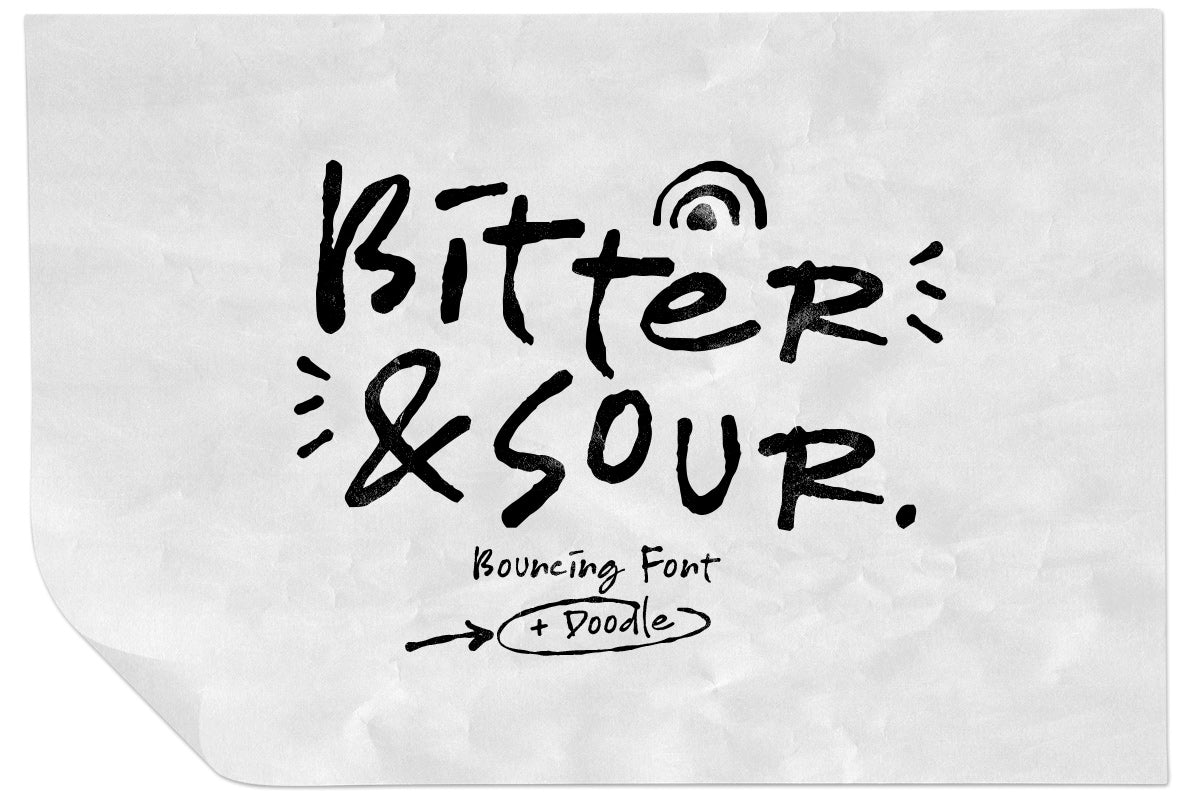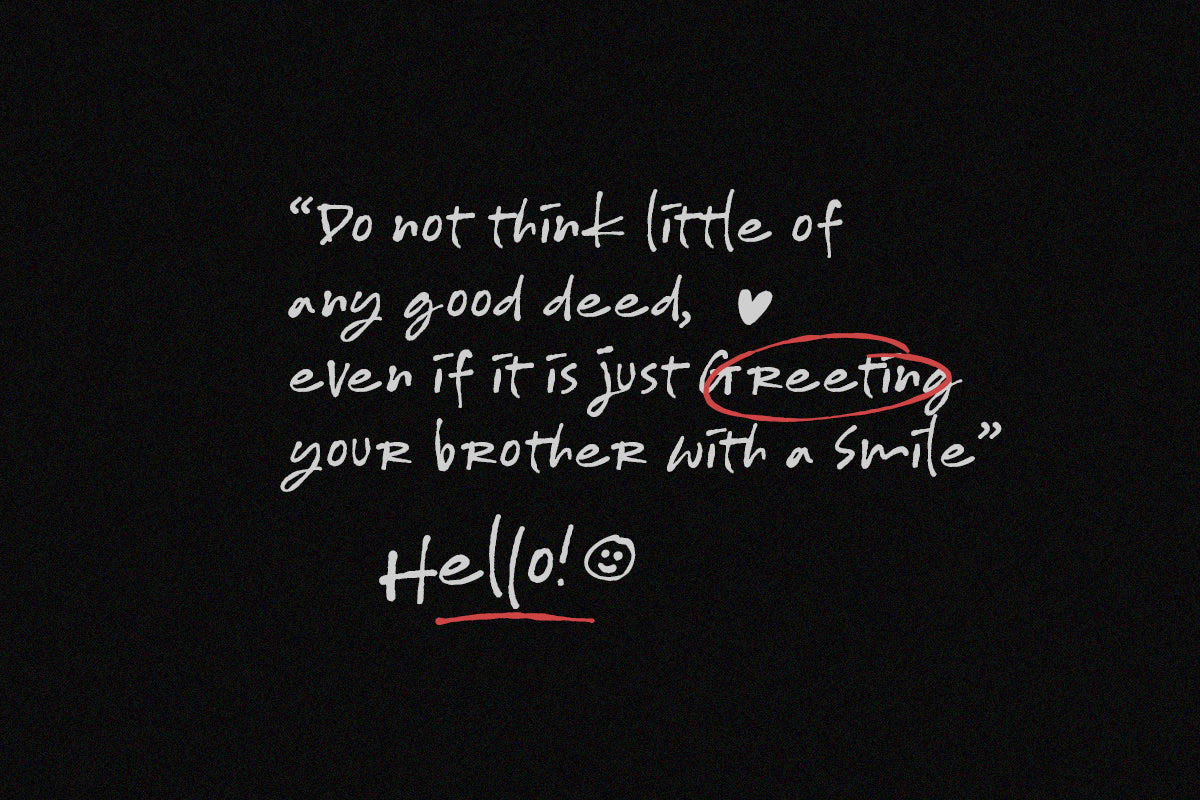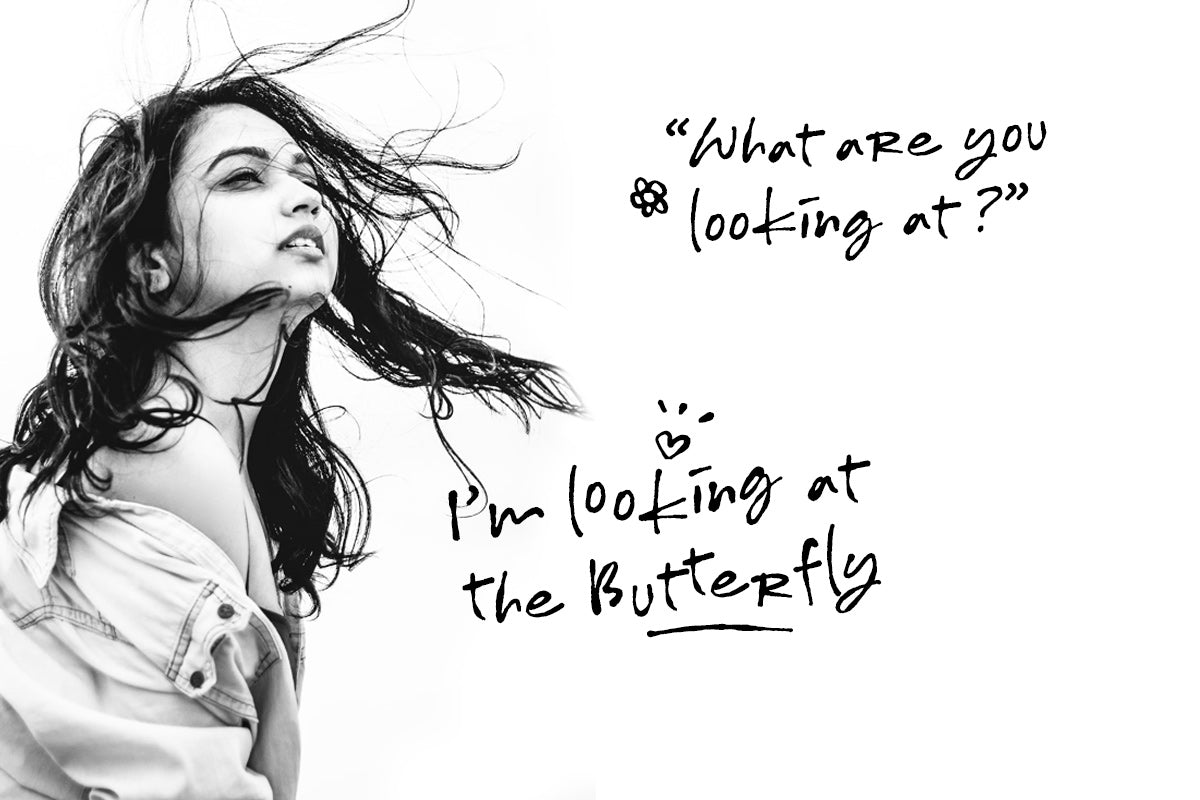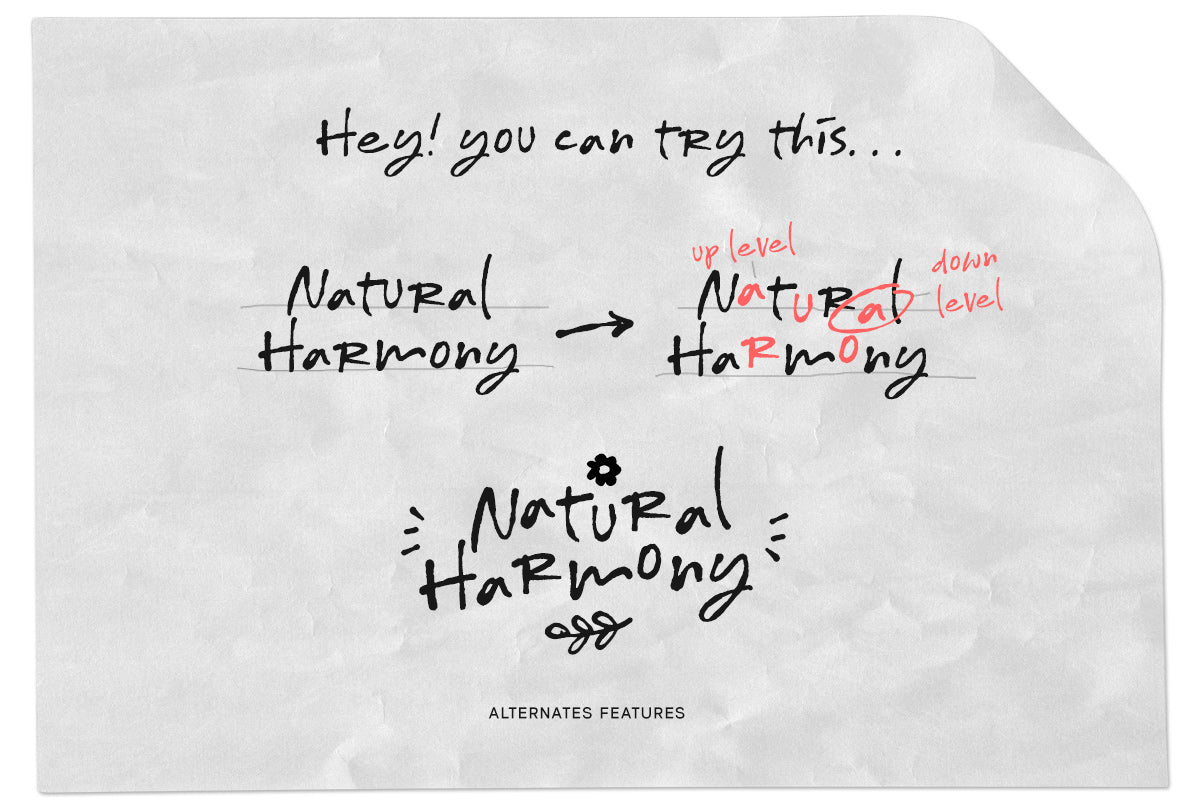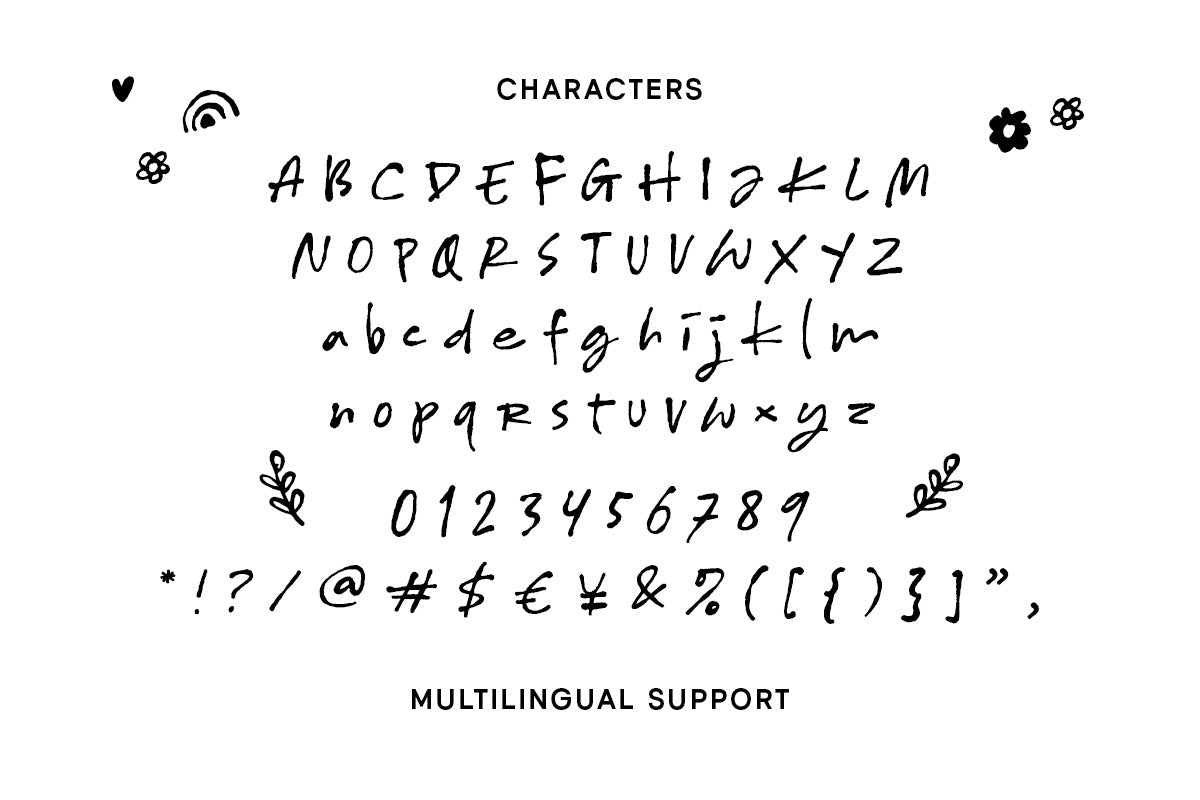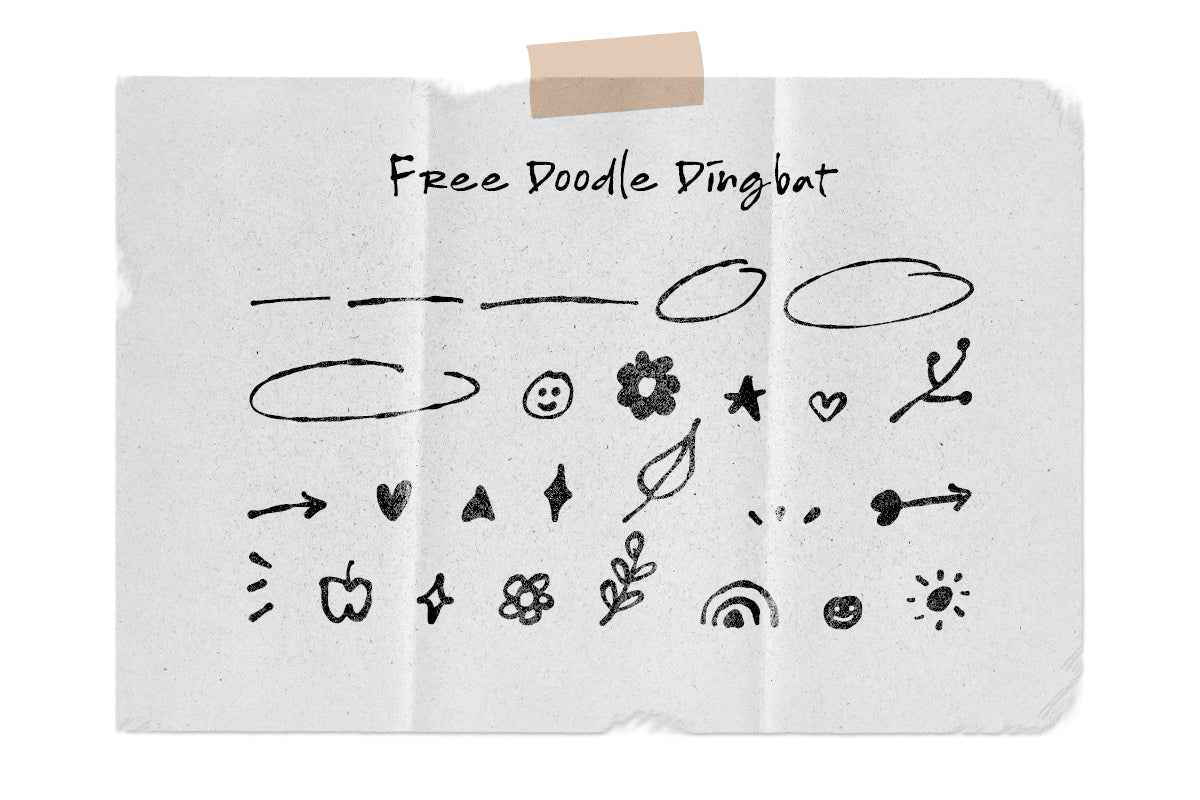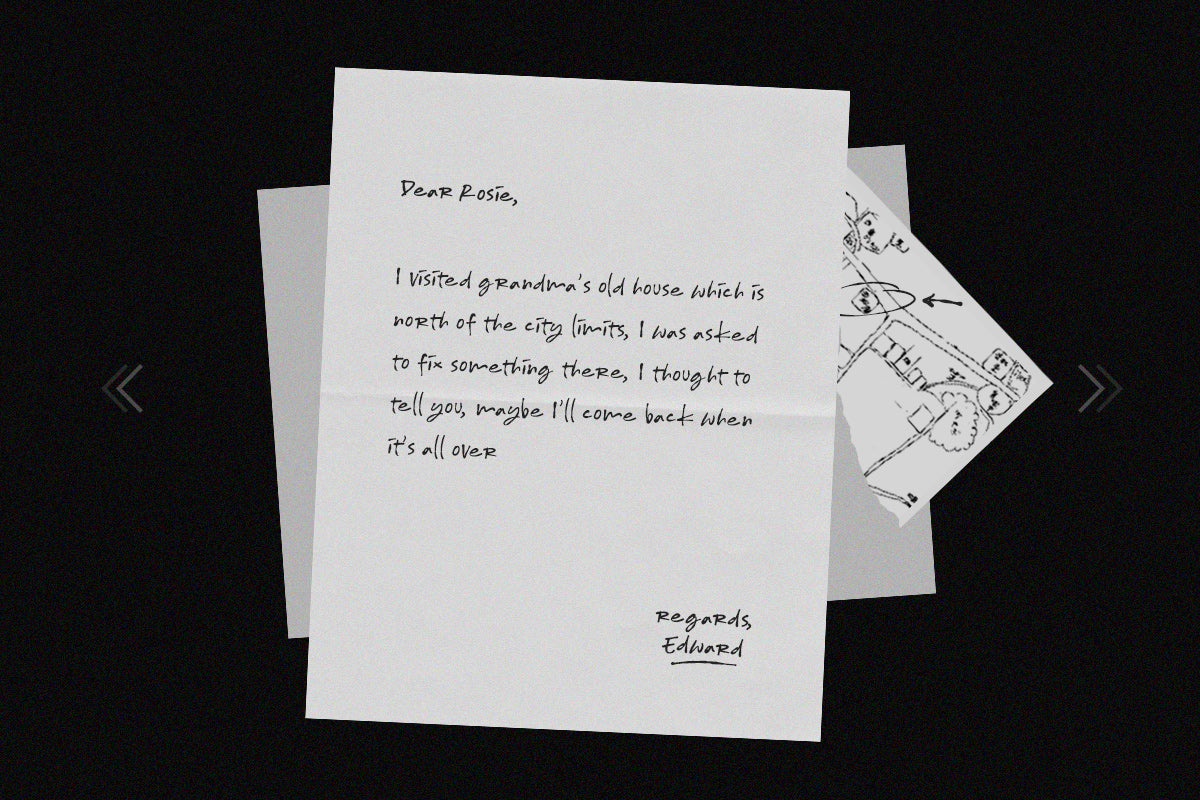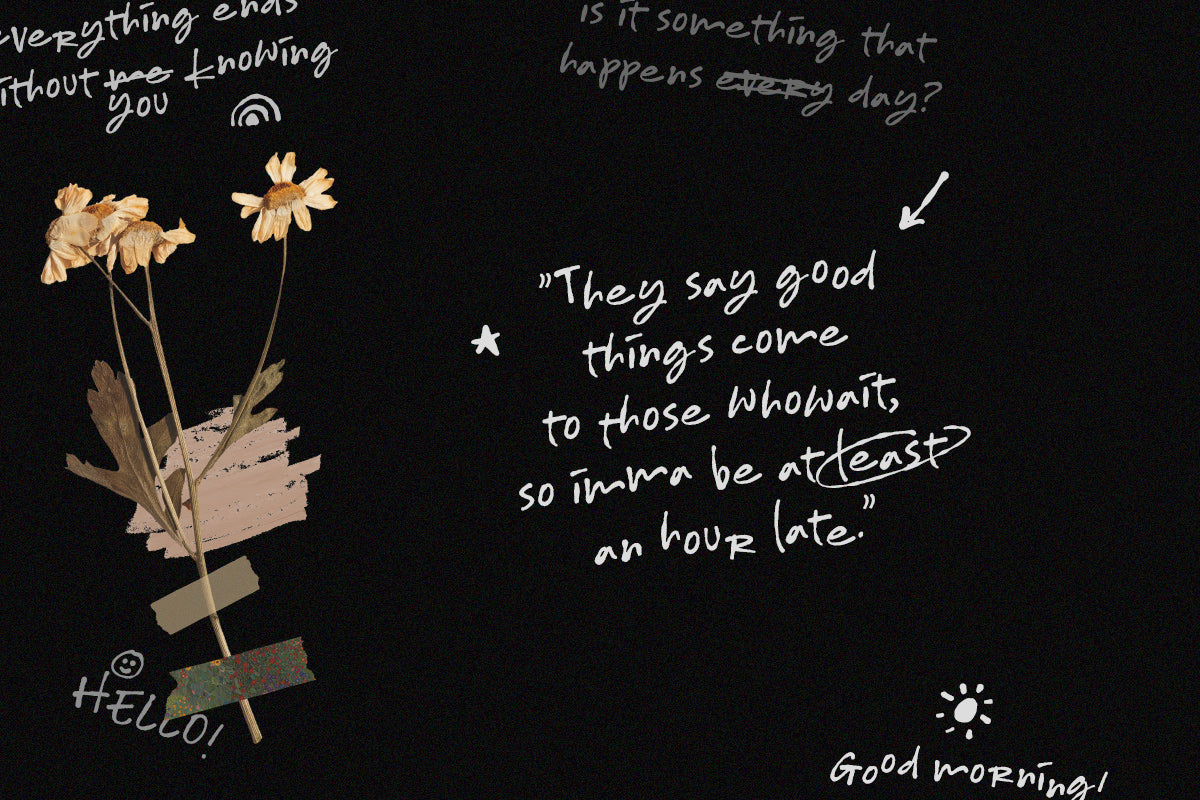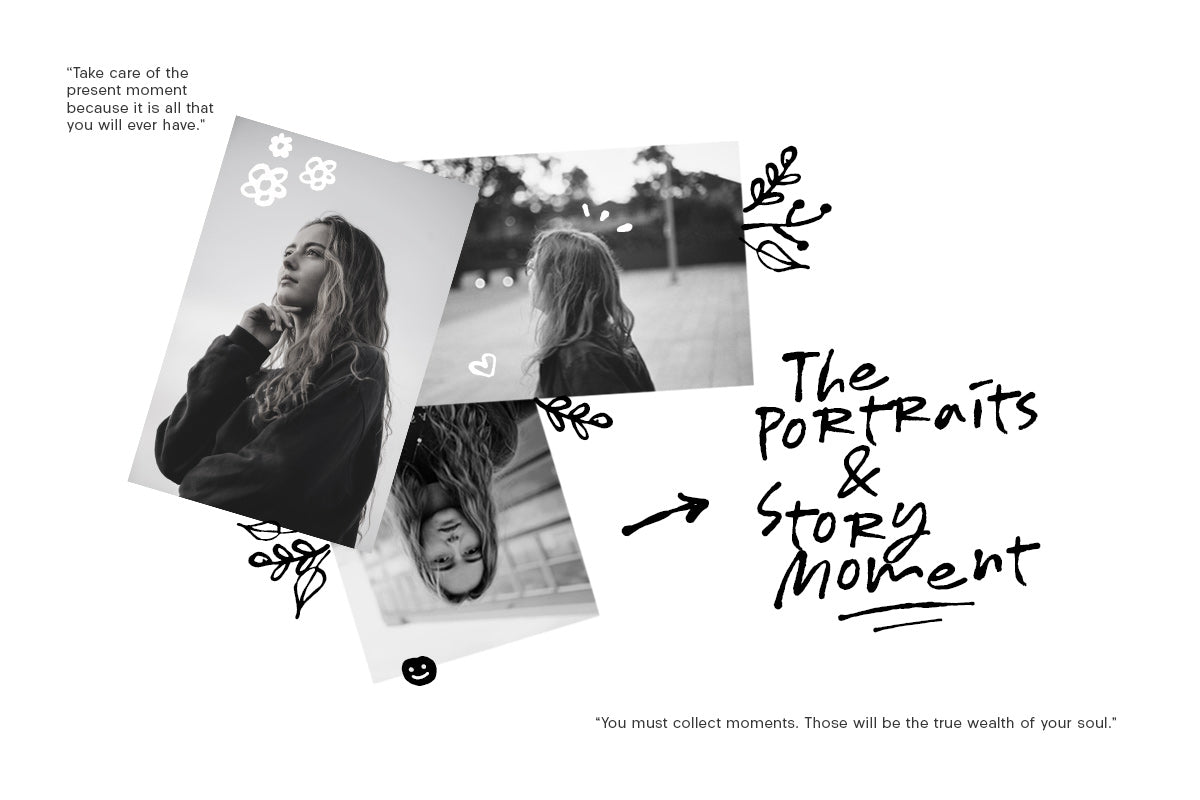
Bitter & Sour + Bonus Doodle
Bitter & Sour is a bouncing typeface with fun and playful looks. Comes with doodle dingbats as extra! This type of font is perfectly made to be applied especially in fun, playful, storybook children or child theme which is need a standout font, and the other various formal forms such as invitations, labels, logos, magazines, books, greeting / wedding cards, packaging, fashion, make up, stationery, novels, labels or any type of advertising purpose.
Features :
Uppercase & Lowercase
Doodle dingbats
numbers and punctuation
multilingual support
Alternate Characters